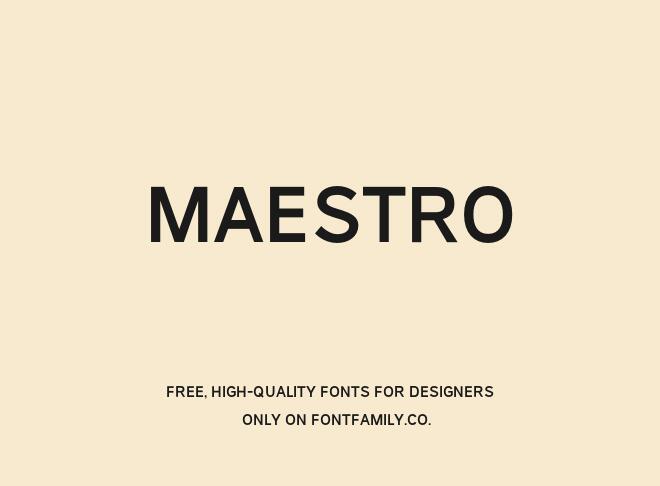
Maestro Font
Maestro Font is a modern and elegant display typeface crafted by the Design Maestro Foundry. Its unique character design, combined with a subtle touch of minimalism, makes it a perfect choice for a wide range of design projects. Whether you're working on a branding project, creating an invitation card, or designing a website, Maestro Font will add a touch of sophistication and class to your work. Compared to other fonts, Maestro Font stands out with its clean lines and well-balanced letterforms. Its versatility allows it to blend seamlessly in both print and digital environments. For designers seeking a font that combines modern flair with elegant appeal, Maestro Font is an excellent choice. Its free personal use license makes it accessible for a wide range of design enthusiasts.